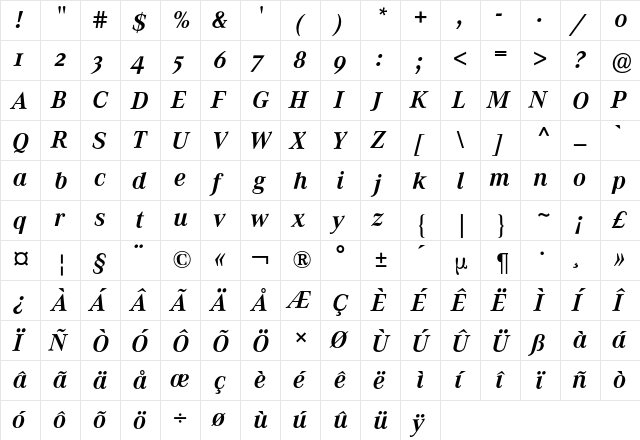
Corporate A Expert BQ Regular
Design Context for Corporate A Expert BQ Typeface
Corporate A Expert BQ is a composed and adaptable typeface that performs quietly and consistently across a wide range of design contexts.
Pro Tip: Use Corporate A Expert BQ in both headline and body roles to test its range before committing to a single application.